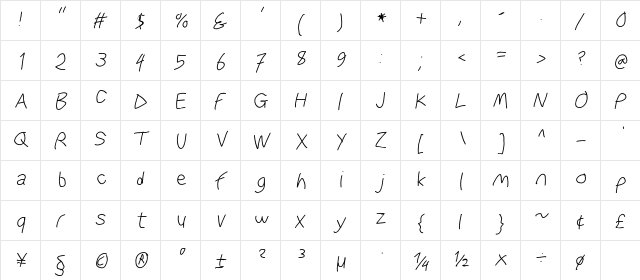
WaterFire Obl
Design Context for WaterFire Typeface
WaterFire is a composed and adaptable typeface that performs quietly and consistently across a wide range of design contexts.